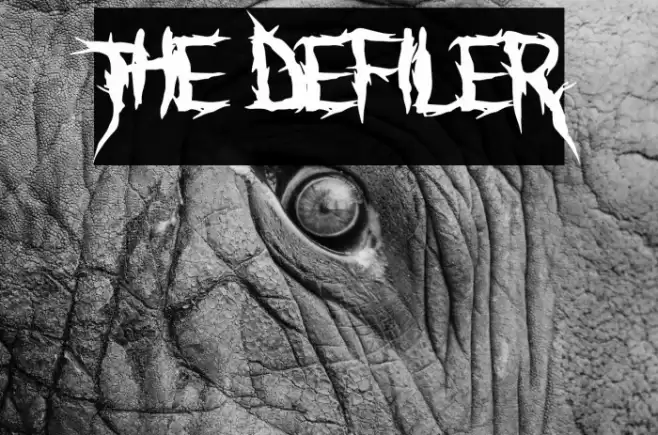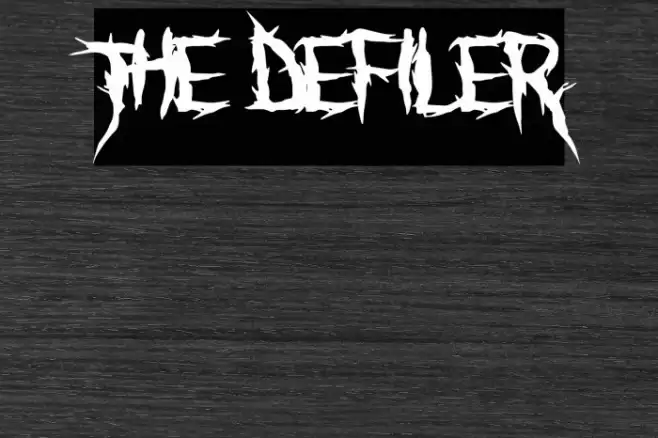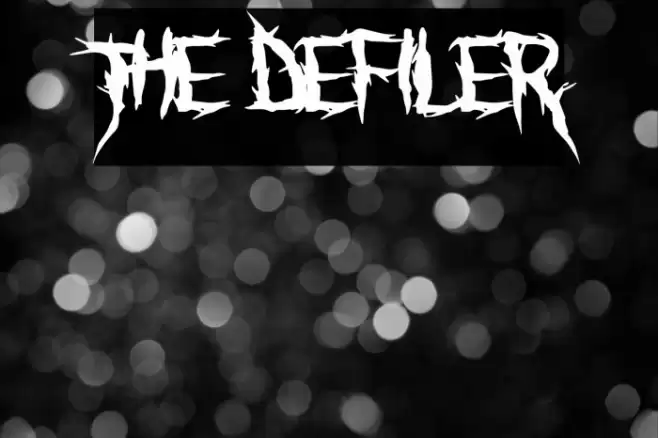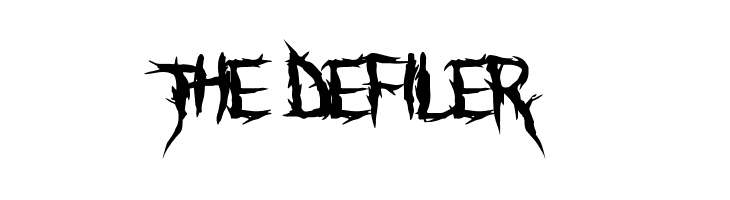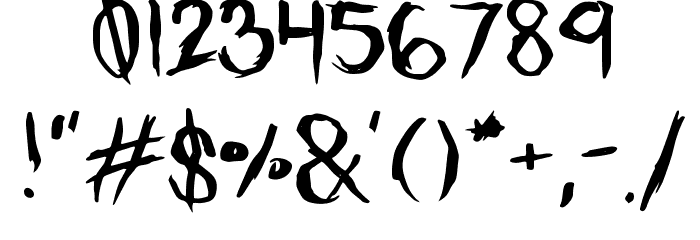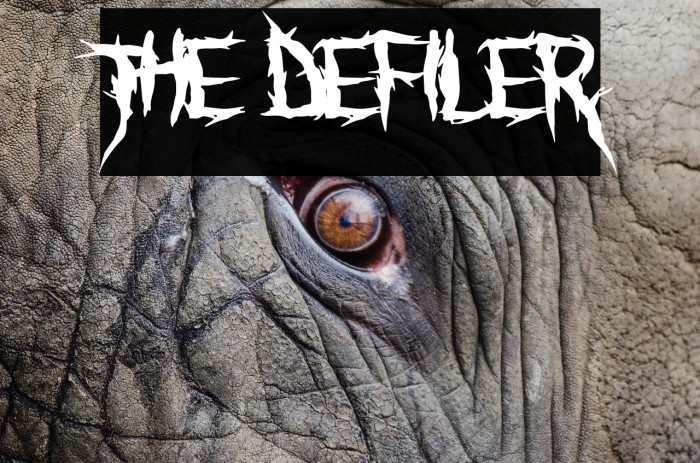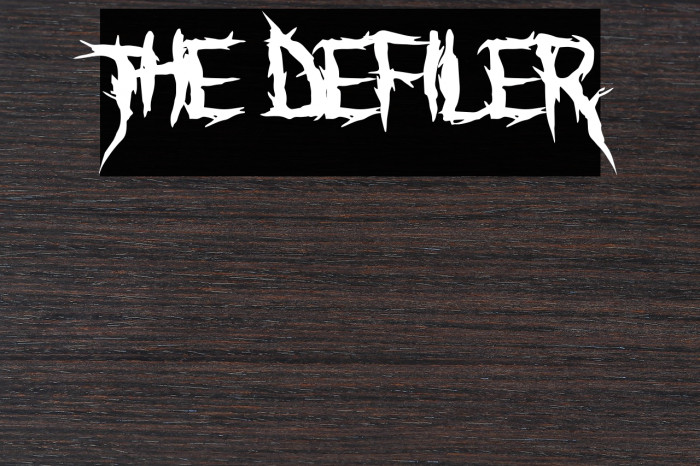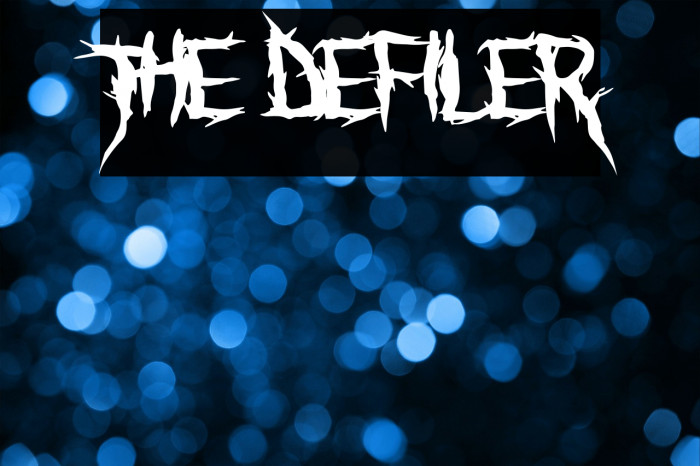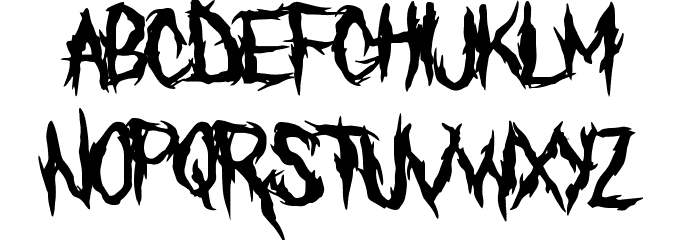
The Defiler Font
The Defiler Description
This font features a highly stylized, jagged appearance that evokes a sense of chaos and intensity. The characters are bold and irregular, with sharp edges and uneven strokes that create a dynamic and aggressive aesthetic. The uppercase and lowercase letters maintain a consistent style, with exaggerated serifs and pointed terminals. Numbers and special characters follow the same design principles, ensuring a cohesive look across all glyphs. This font's unique style makes it stand out, offering a visually striking option for projects that require a dramatic and edgy feel.
A bold, jagged font with sharp edges and an aggressive, chaotic style from Horror fonts.
- Proposed Projects: Ideal for horror-themed posters, album covers, video game titles, and any project needing a dramatic, edgy look.